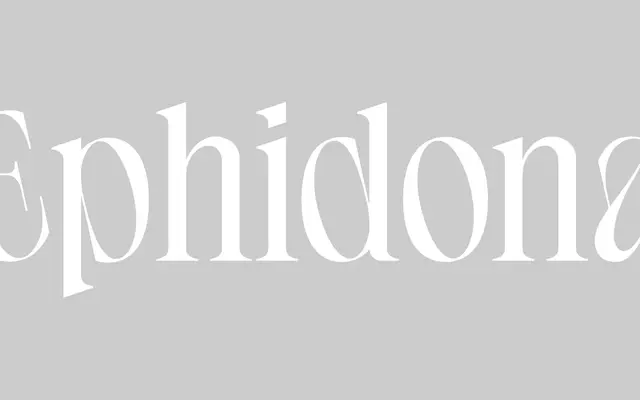
A high-contrast display serif with stylistic alternates and ligatures, aimed at logotype and editorial layout work.
Ephidona is a single-weight, high-contrast serif with a 349-glyph set covering Latin Extended, stylistic alternates, ligatures and a full punctuation suite. The strong thick-thin contrast makes it well suited to large-scale headline and logotype settings. Practical for branding and layout work where a refined, formal serif character is needed without a full weight range.
The foundry explicitly describes Ephidona as a high-contrast serif, placing it in the display serif tradition with strong thick-thin stroke differentiation suited to logotypes and editorial layouts.